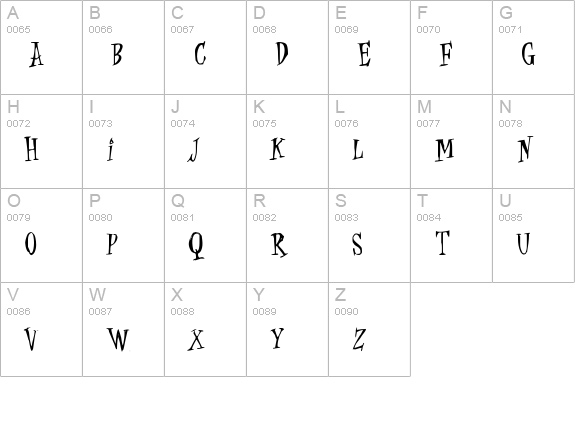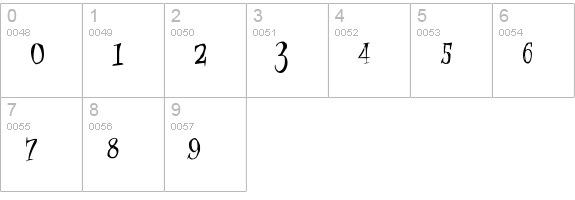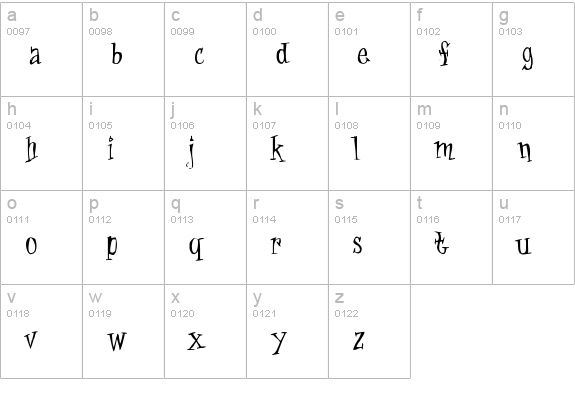
Cat Krap! Font Details
Cat Krap! font is a whimsical and playful typeface that is perfect for adding a touch of fun to any design project. With its quirky and unique style, Cat Krap! is sure to stand out and grab attention. This font is free to download at FontsMarket.com, making it accessible to all designers looking to add a bit of personality to their work. Whether you're creating posters, invitations, or social media graphics, Cat Krap! will bring a sense of charm and creativity to your designs. Download this delightful font today and let your imagination run wild!